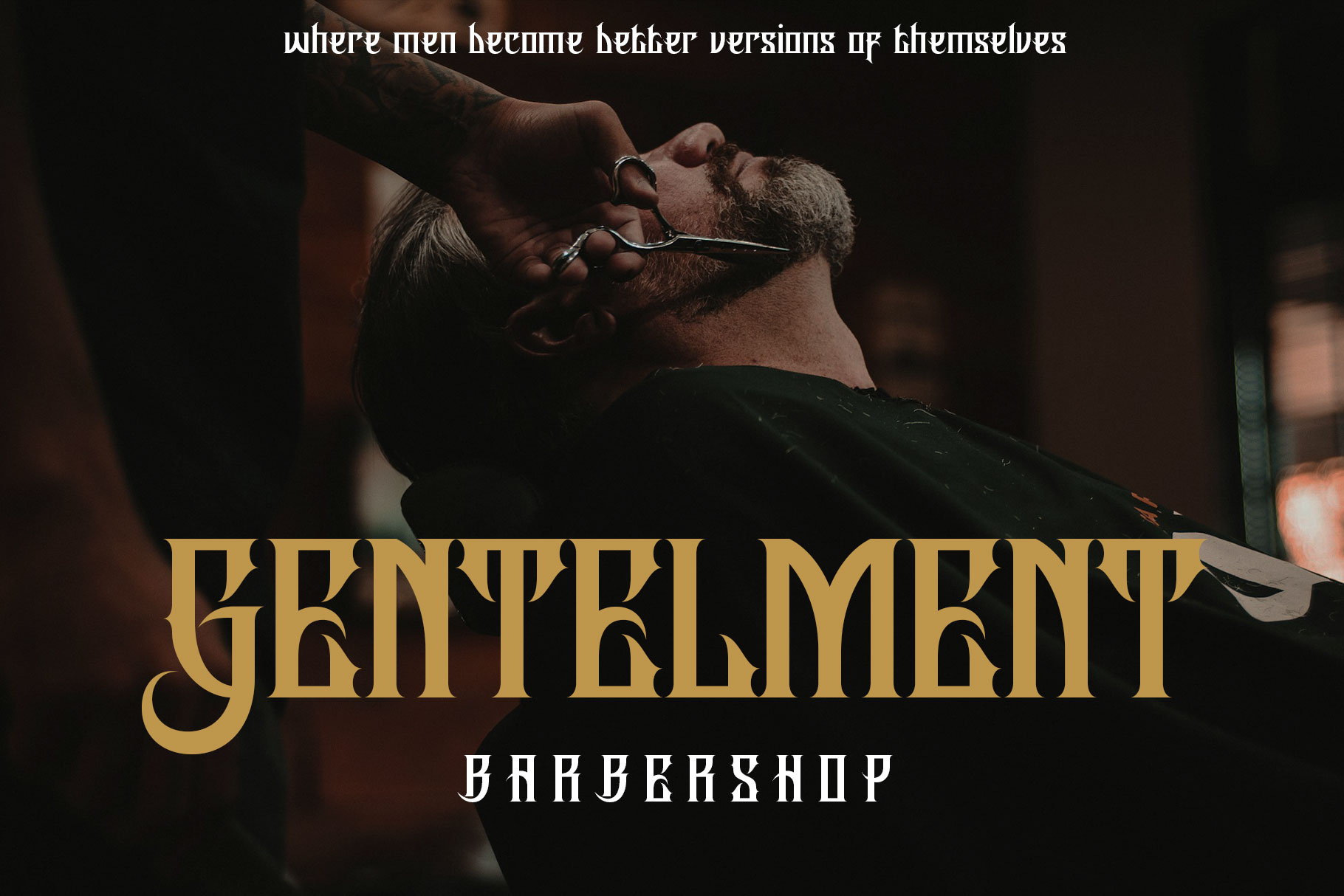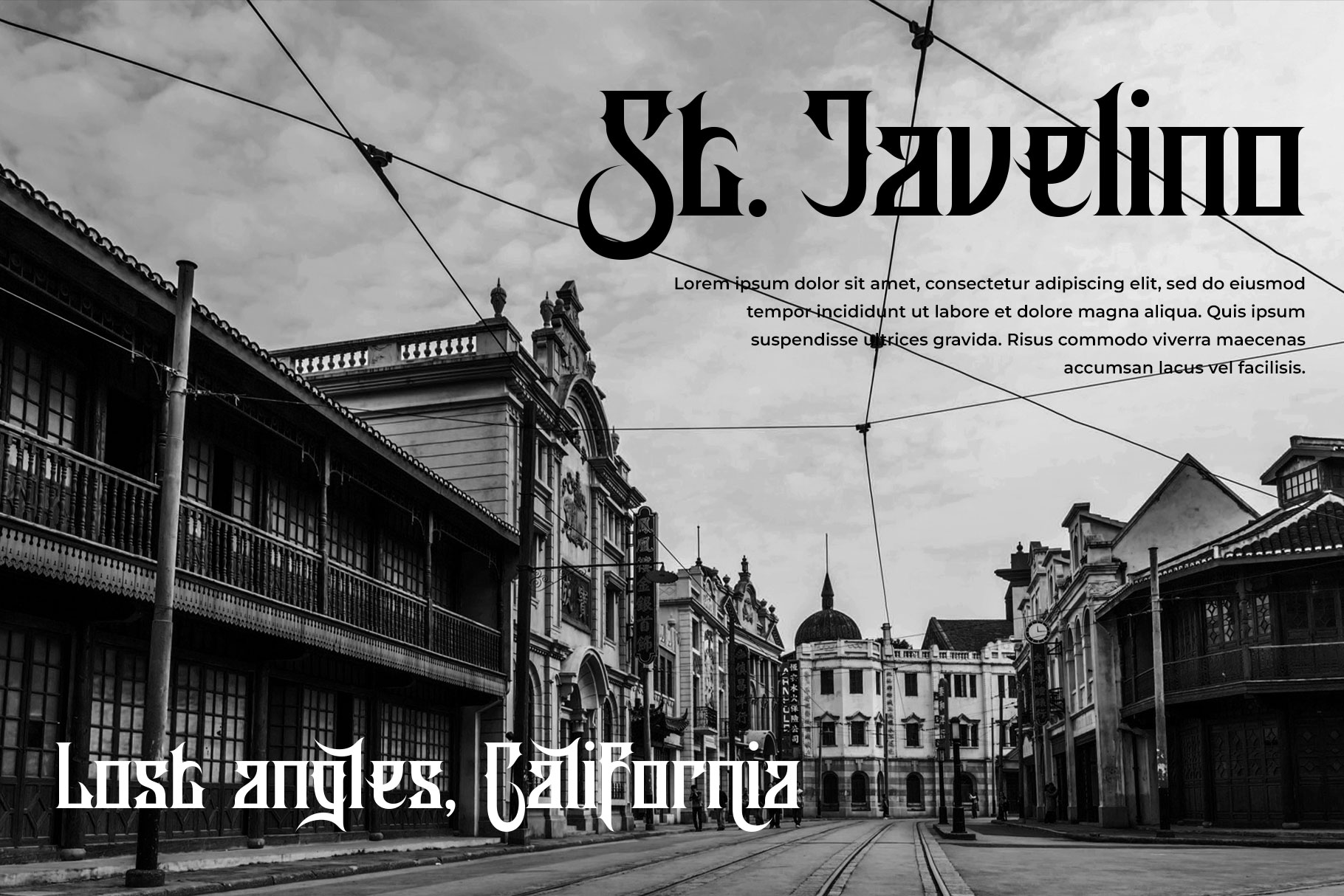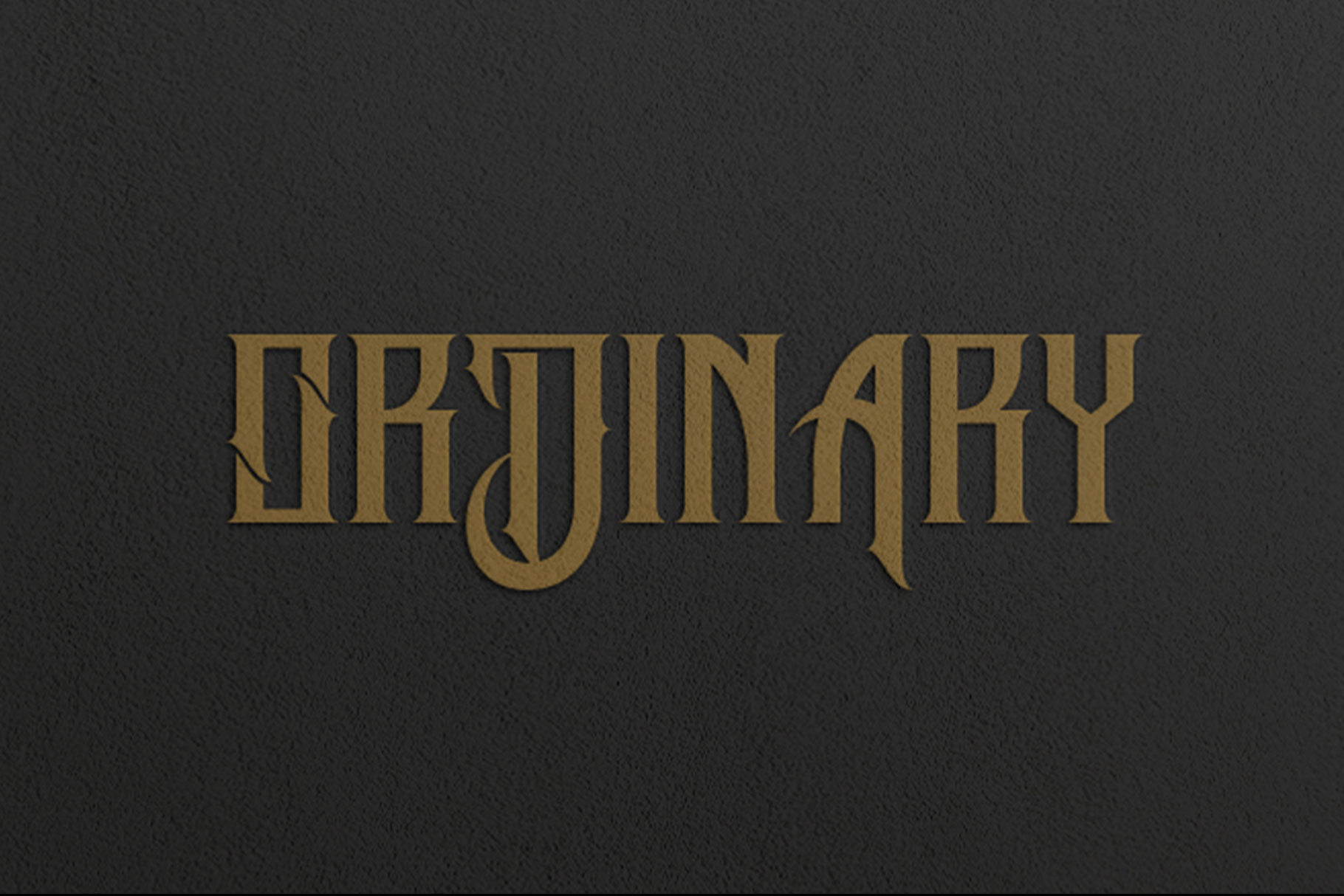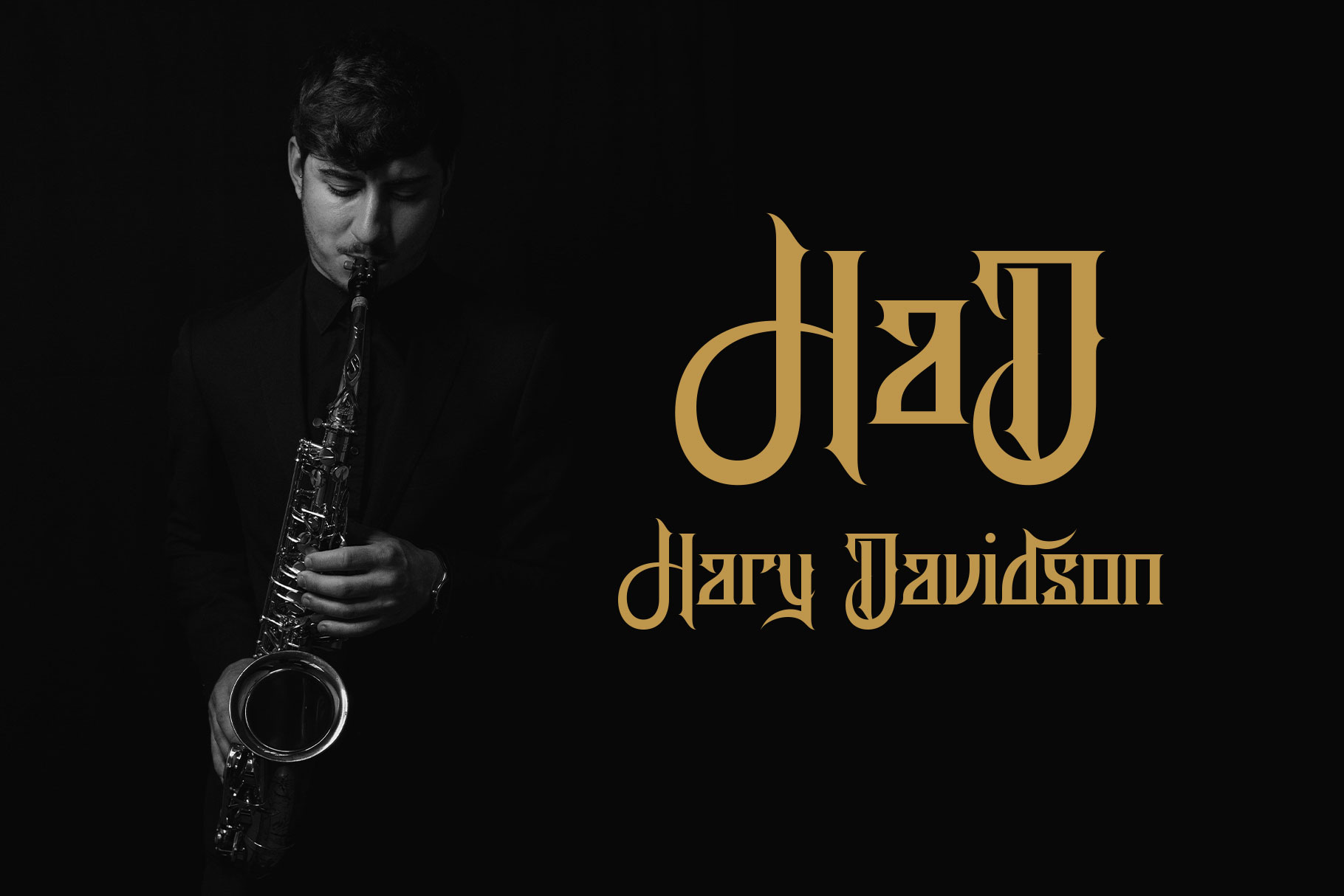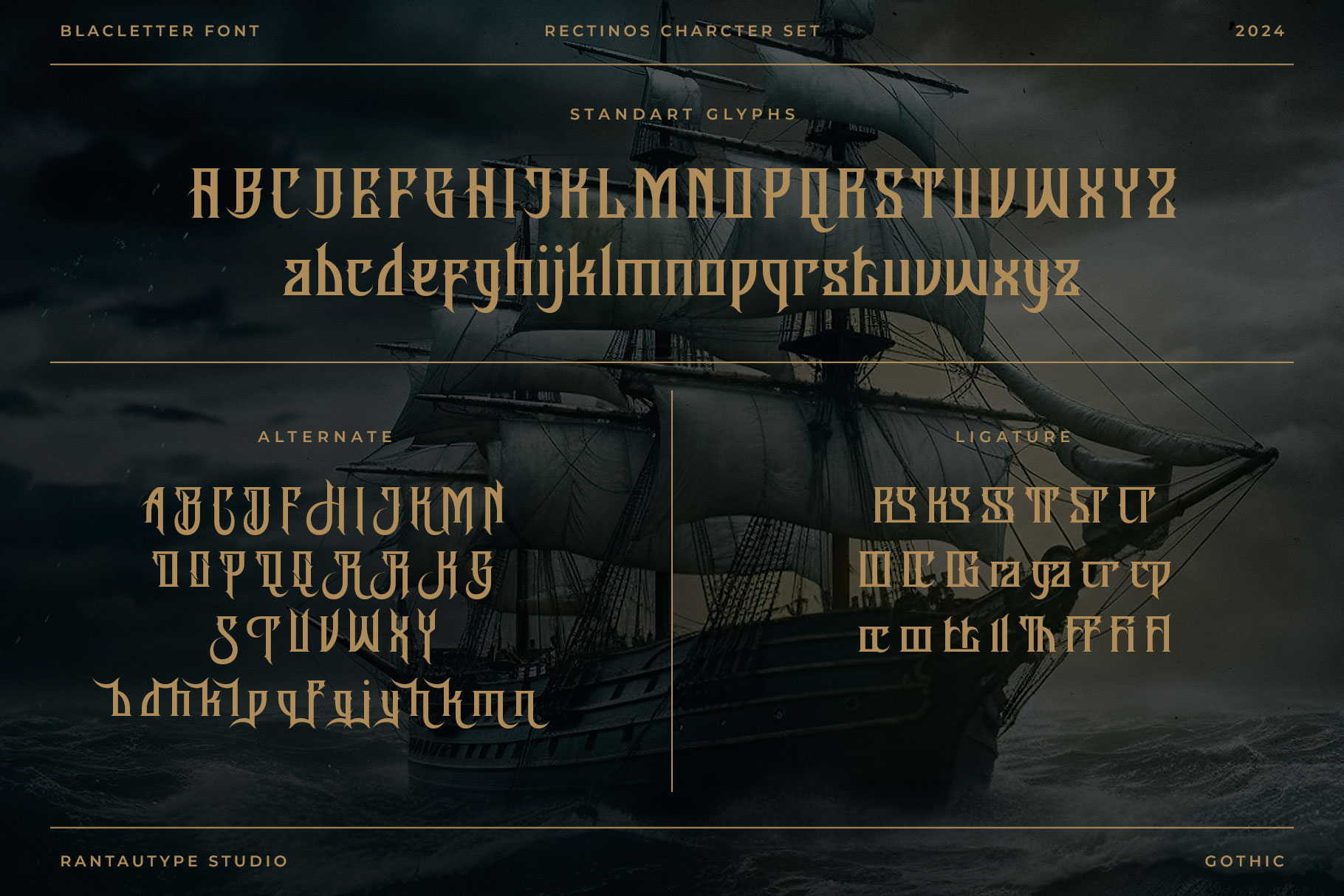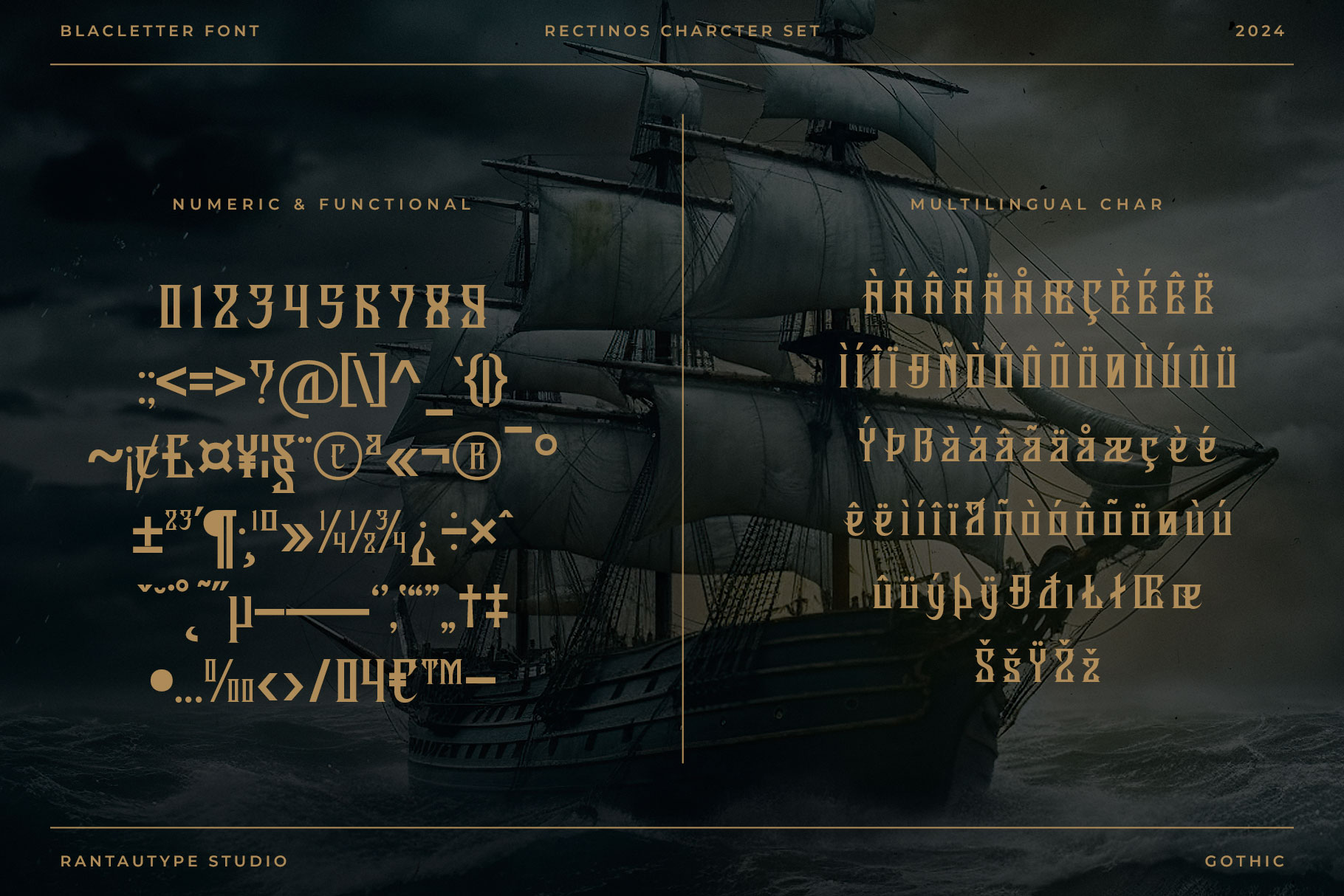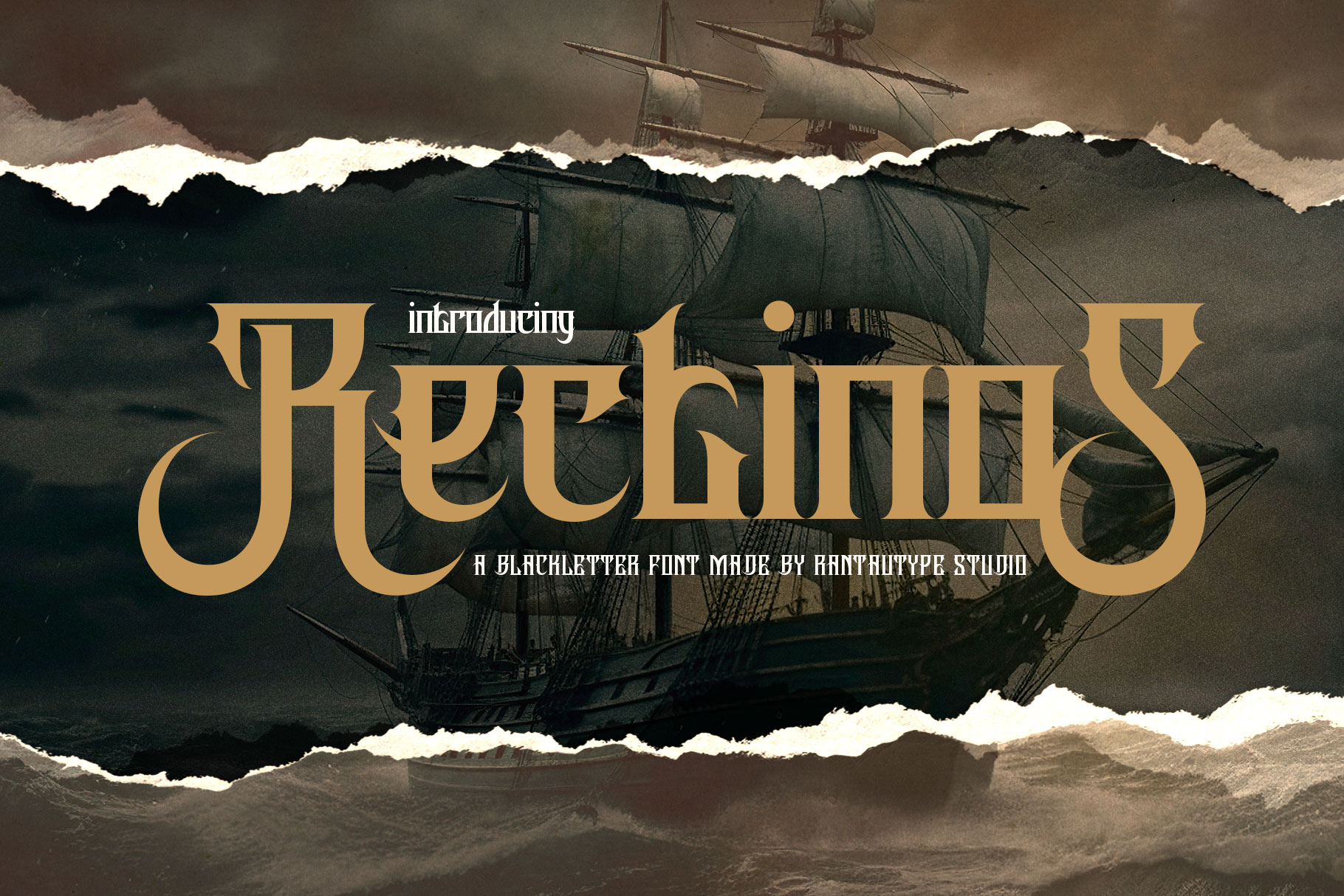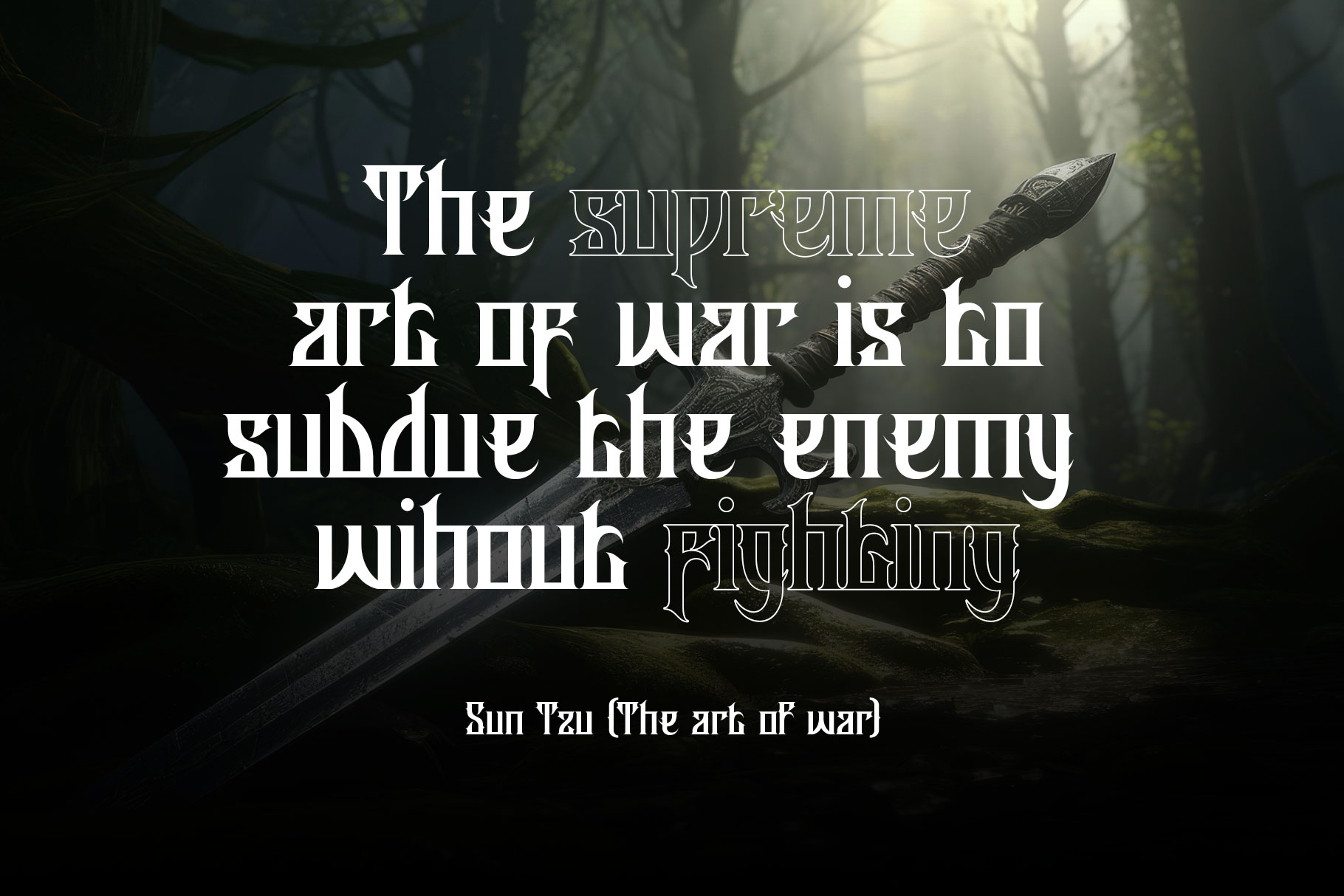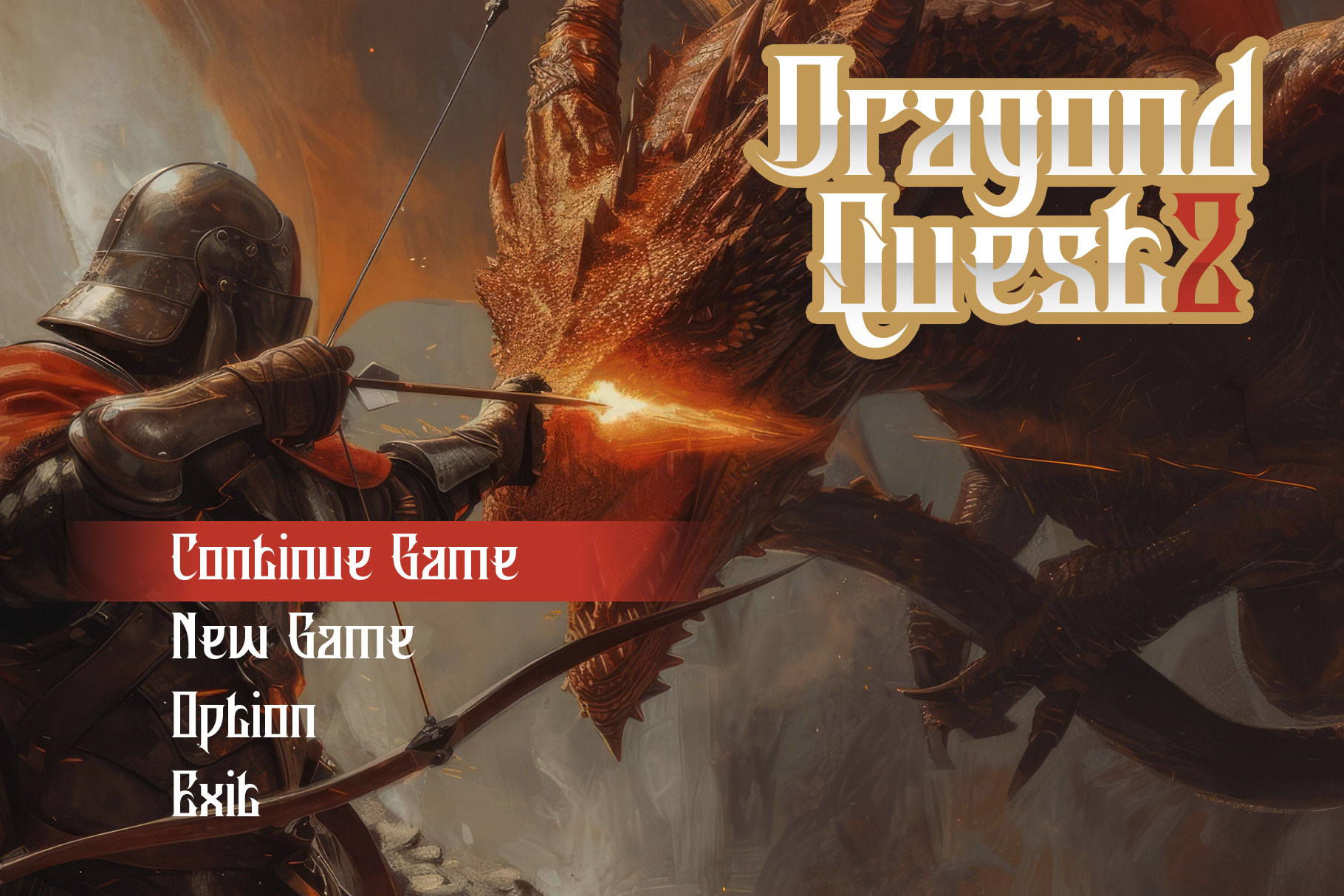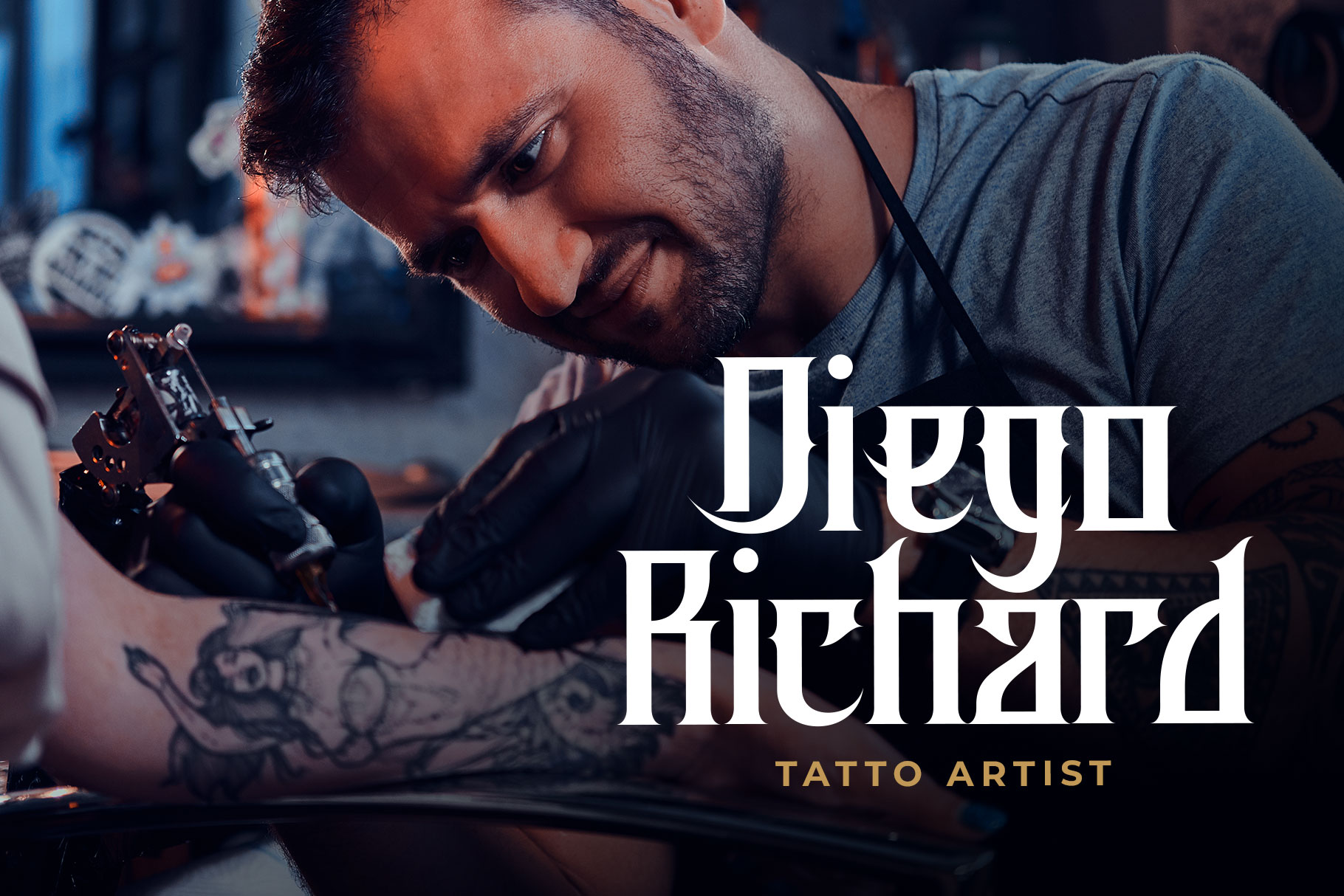
Rectinos A Blackletter Font
Rectinos is blackletter font with gothic style. Rectinos bring sharp, modern and minimalistic look to inspire you to create something strong and vintage.
Rectinos is a perfectly choice for any creative endeavor, lifestyle design such as logos, advertisements, stationery, branding project, display and magazine, invitation, corporate brand, product design, label, business project and many other project with vintage or gothic touch.